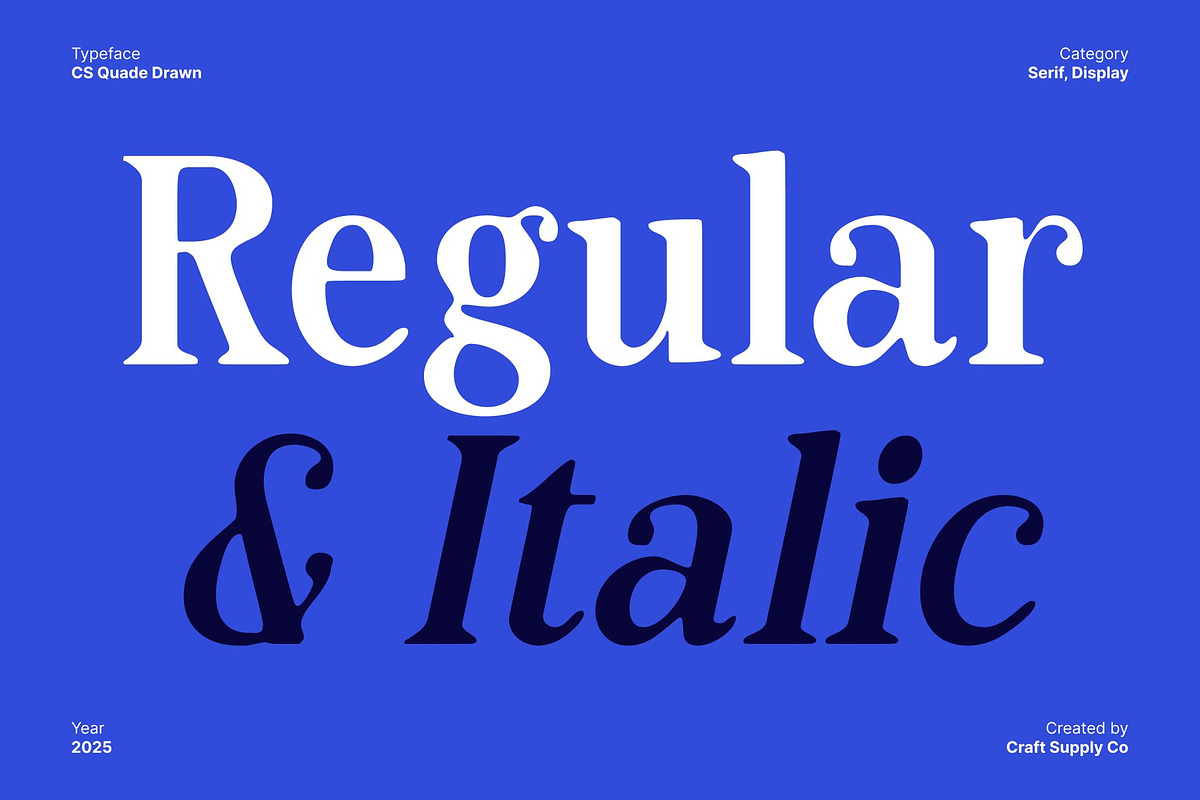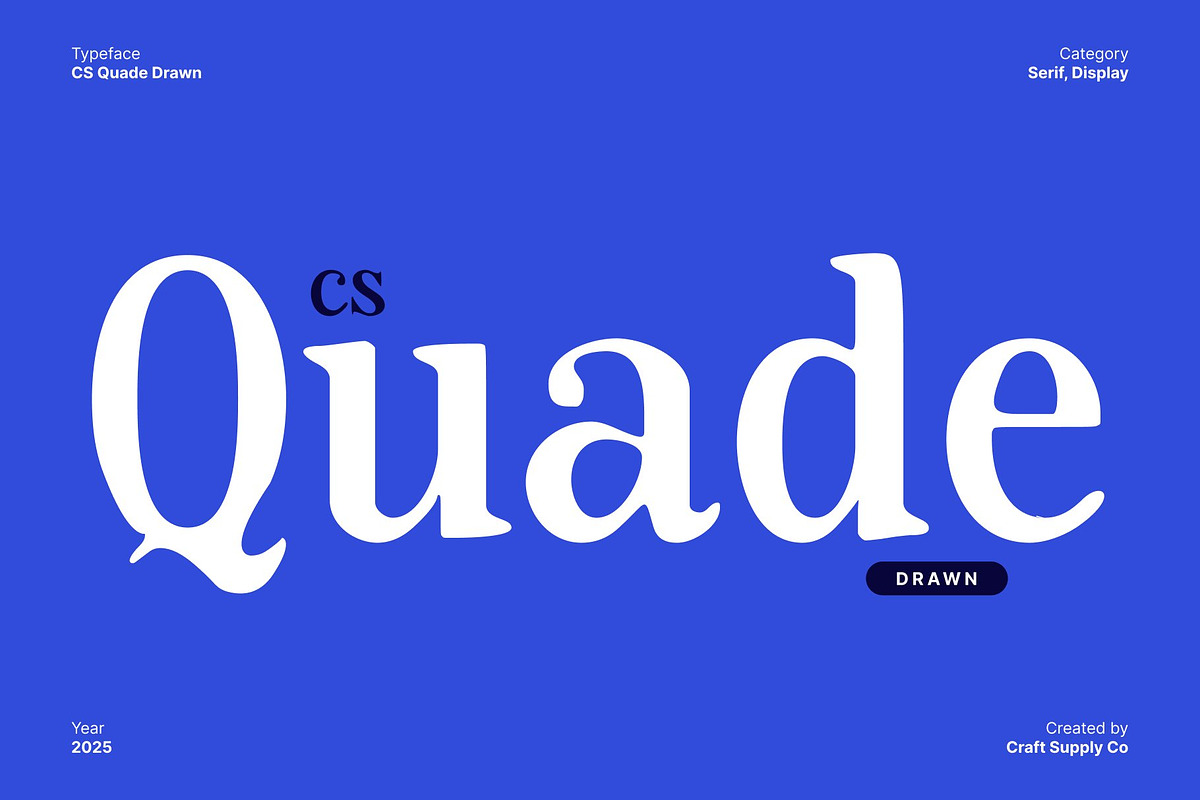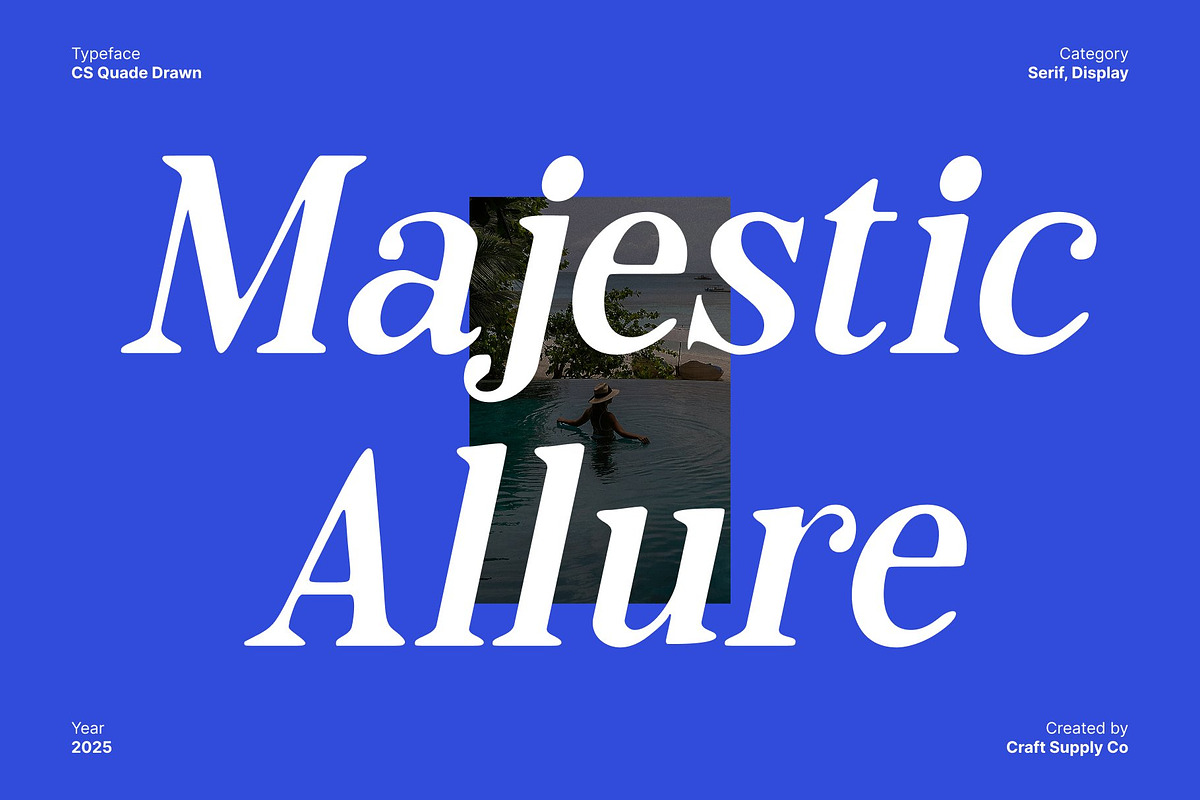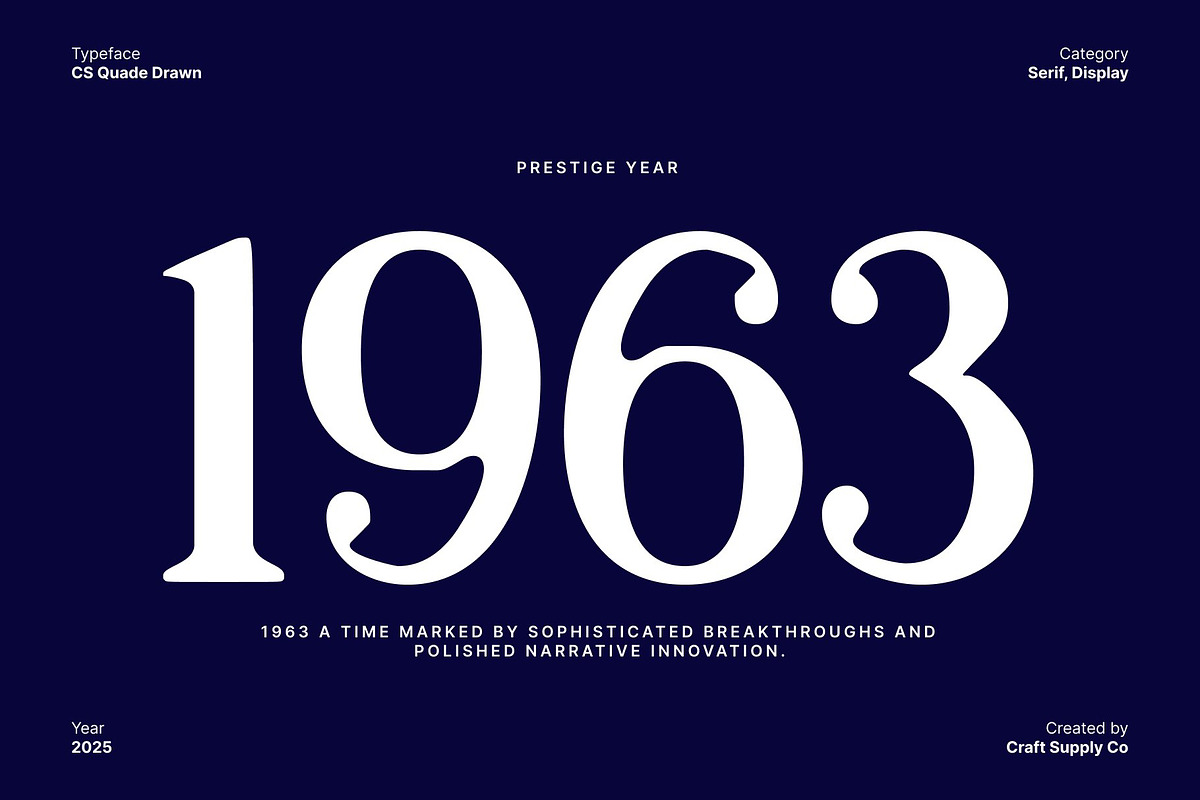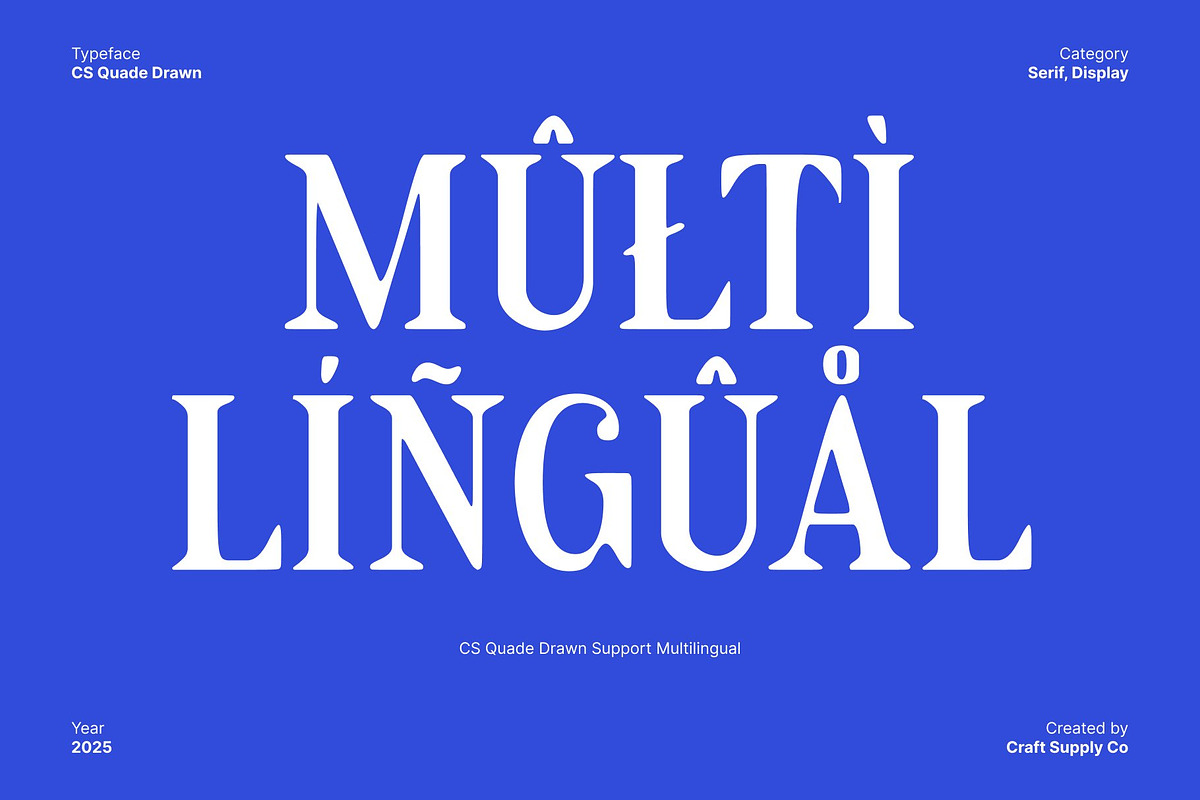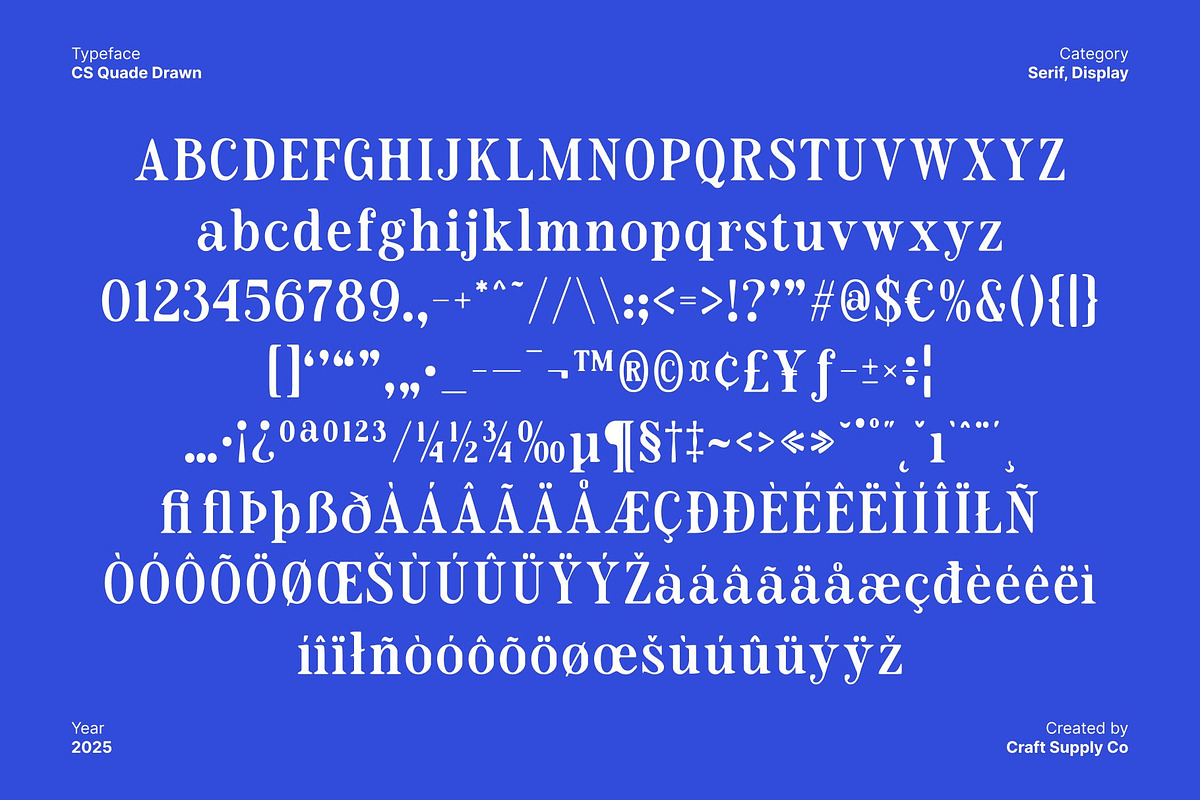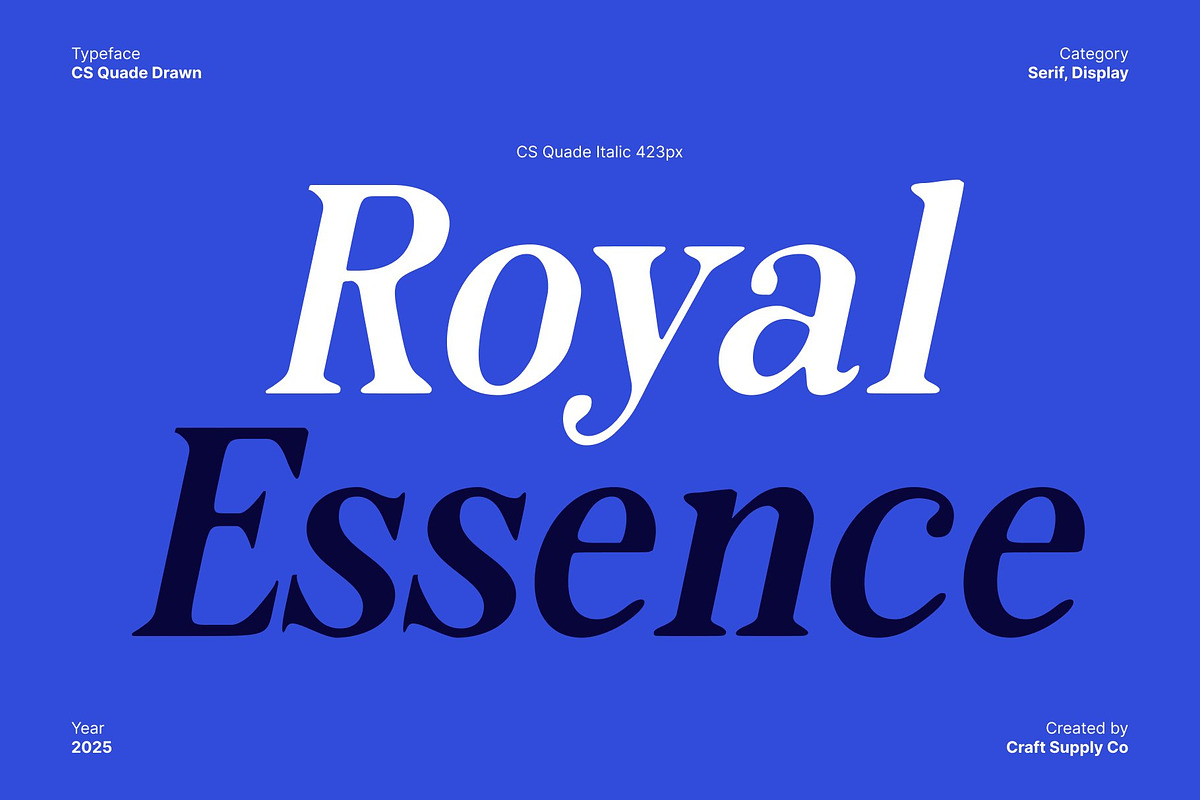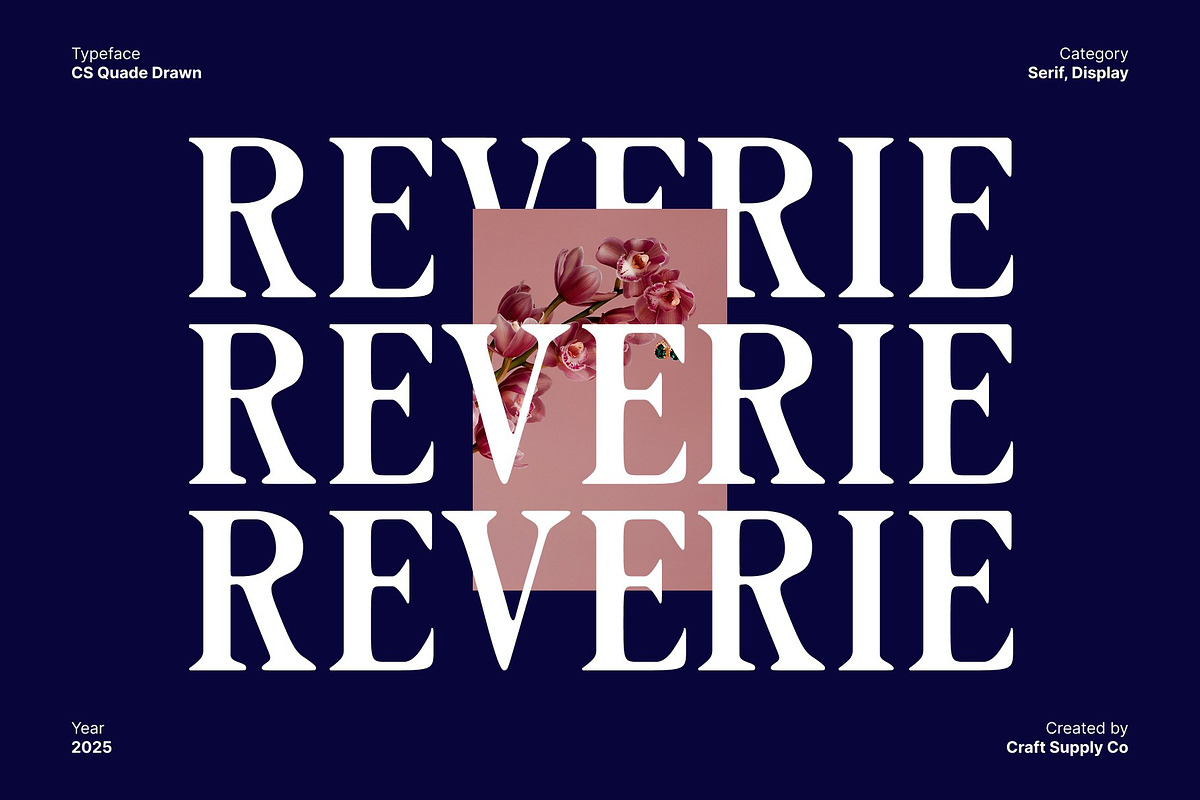
CS Quade Drawn
CS Quade Drawn – Nostalgia Display Font with Artistic Drawn Texture
Expressive Letterforms Evoking Nostalgia Nostalgic and retro expressive, this display font captures the spirit of vintage prints and classic lettering styles. Its bold and distinctive shapes convey personality and warmth, creating a sense of familiarity and timeless appeal for your designs.
Artistic Drawn Effect for Authentic Texture The drawn effect adds an organic, handcrafted texture to each character, enhancing the font’s artistic quality. This detail brings depth and character, giving your typography a lively, handcrafted feel that stands out while evoking retro aesthetics.
Retro, Artistic, and Visually Engaging By merging classic display forms with handcrafted drawn textures, this font delivers a typeface that is both nostalgic and contemporary. It’s perfect for designers seeking to evoke vintage aesthetics with a modern, artistic twist.